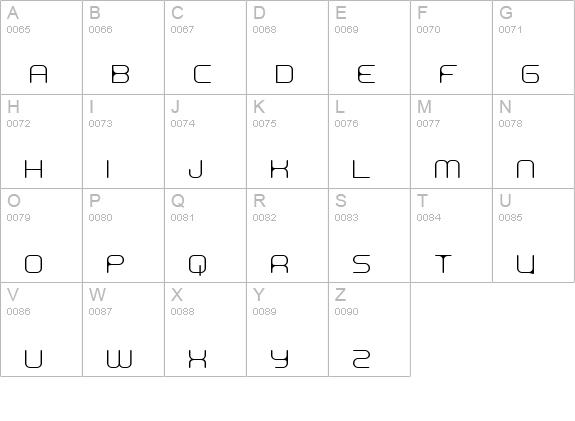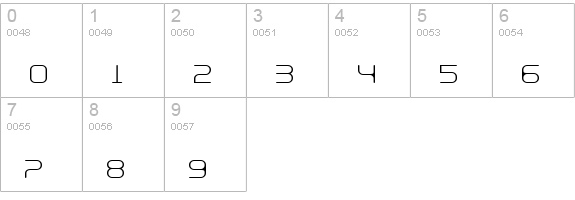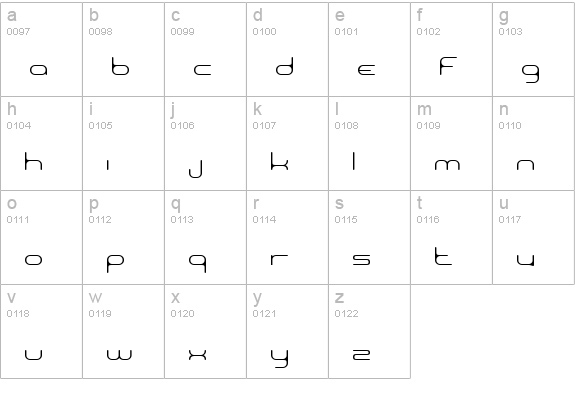
BN Expoo Font Details
Introducing BN Expoo font, a versatile and elegant typeface that exudes sophistication and modernity. With its clean lines and balanced proportions, BN Expoo is perfect for a wide range of design projects, from branding to editorial design. This sleek and stylish font is sure to make your text stand out and leave a lasting impression on your audience. What's even better is that BN Expoo is completely free to download at FontsMarket.com. Yes, you read that right! You can elevate your design projects with this stunning font at no cost at all. Don't miss out on the opportunity to add BN Expoo to your font collection and take your designs to the next level. Download it today and let your creativity shine!